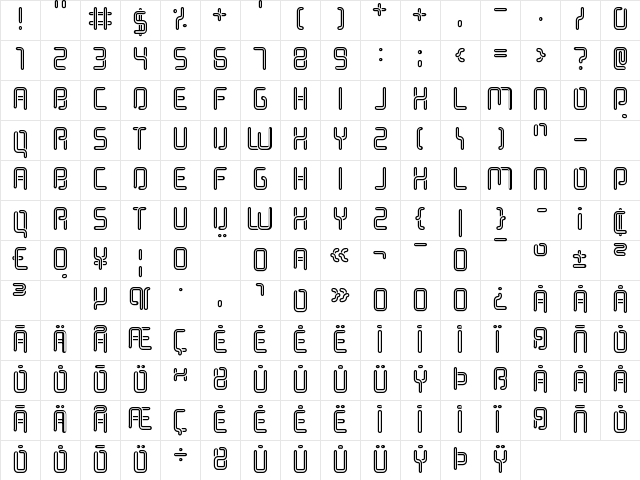
Halogen Gas Lights Regular
| Designer | GameDevDan |
Design Context for Halogen Gas Lights Typeface
Halogen Gas Lights is a composed and adaptable typeface that performs quietly and consistently across a wide range of design contexts. Its slender proportions lend an understated elegance to any composition.